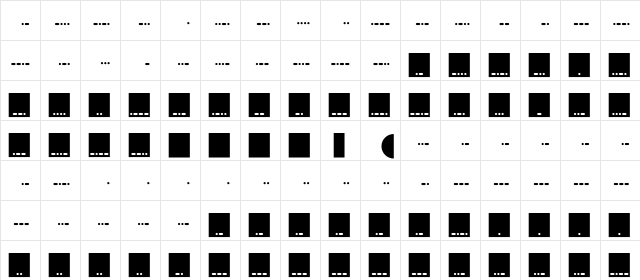
Identification 02M
Design Context for Identification Typeface
Identification offers clean, dependable letterforms without strong stylistic allegiance, making it a practical choice for designers who need flexibility.